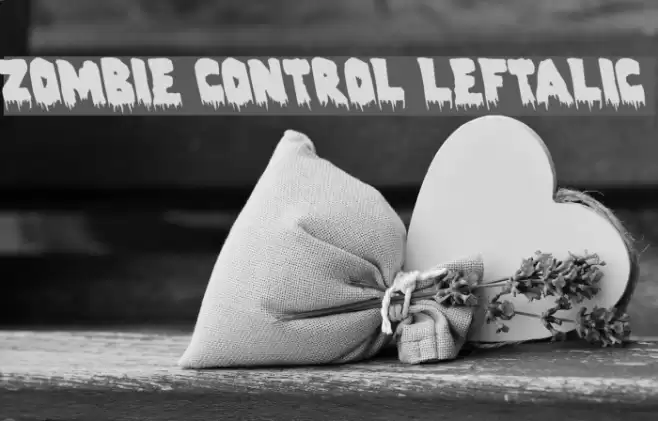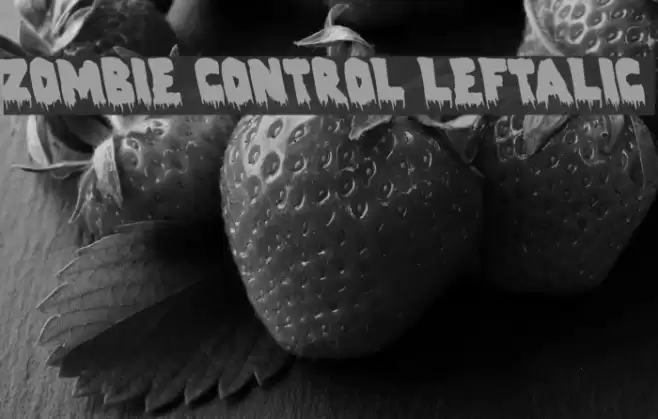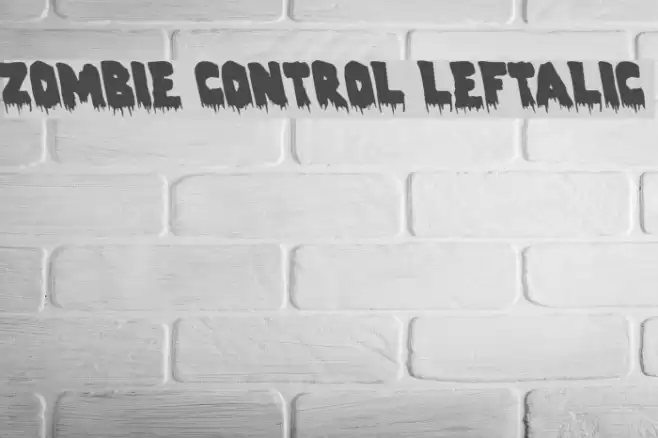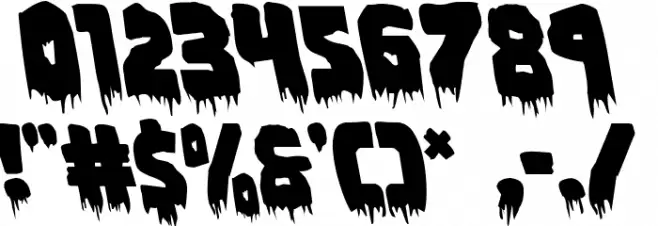
Zombie Control Leftalic Font
Zombie Control Leftalic Description
This font features a bold and dramatic style, with each character appearing as if it is dripping or melting, creating a spooky and eerie effect. The uppercase and lowercase letters maintain a consistent theme, with jagged edges and irregular shapes that enhance the horror aesthetic. The numbers and special characters follow the same design principles, making the font cohesive and visually striking. Its unique appearance makes it ideal for Halloween-themed projects or any design that requires a touch of the macabre.
A bold, dripping font with a spooky, horror-themed aesthetic from Uncategorized fonts.
- Proposed Projects: Ideal for Halloween invitations, horror movie posters, haunted house flyers, and themed event branding.